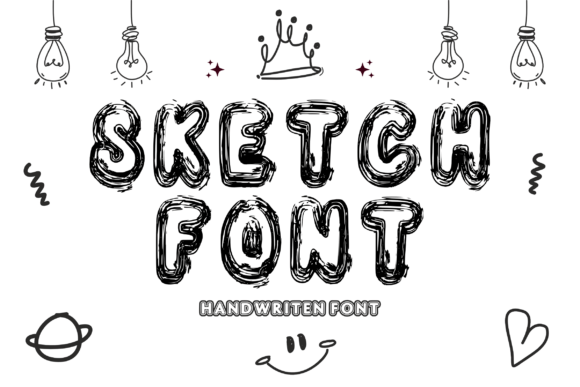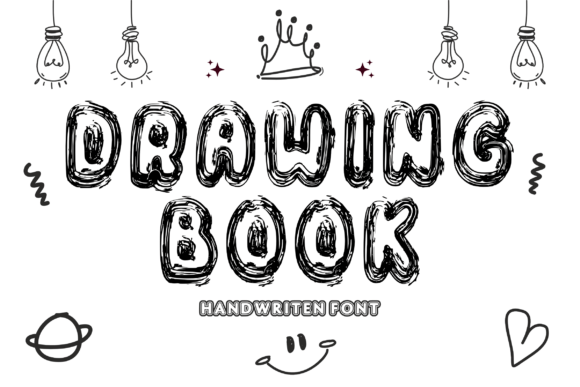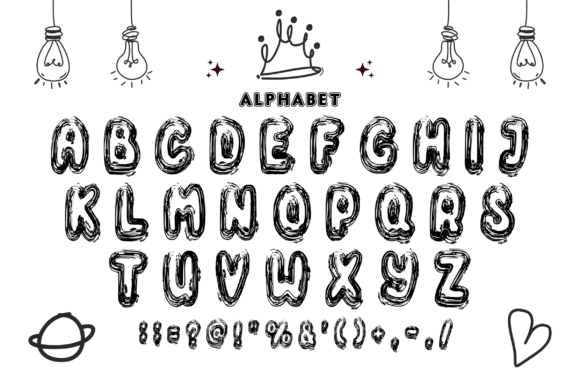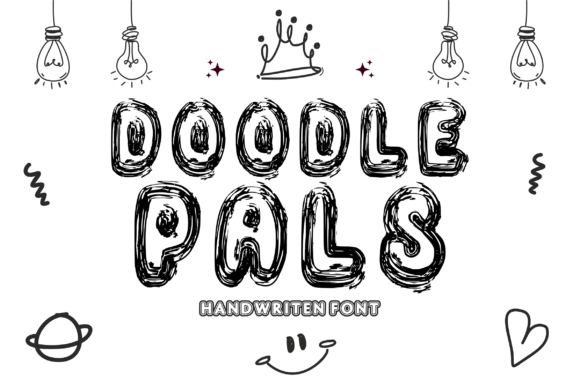
Introduction to Doodlepals Regular Font
Doodle Pals Font โ€“ Hand-drawn bubble/marker display font โ€” a decorative, sketchy outline style with bold, rounded forms (great for headlines/logos, not body text).
Doodle Pals is ultra-bold , with a big, inky presence created by heavy outlines and dense, scribbled fills Shapes are rounded and โ€œpuffy,โ€ like bubble lettersโ€”soft corners, generous bowls, and open countersโ€”yet the hand-drawn texture produces irregular edges and occasional inner swirls.
Key Features of Doodlepals Regular Font